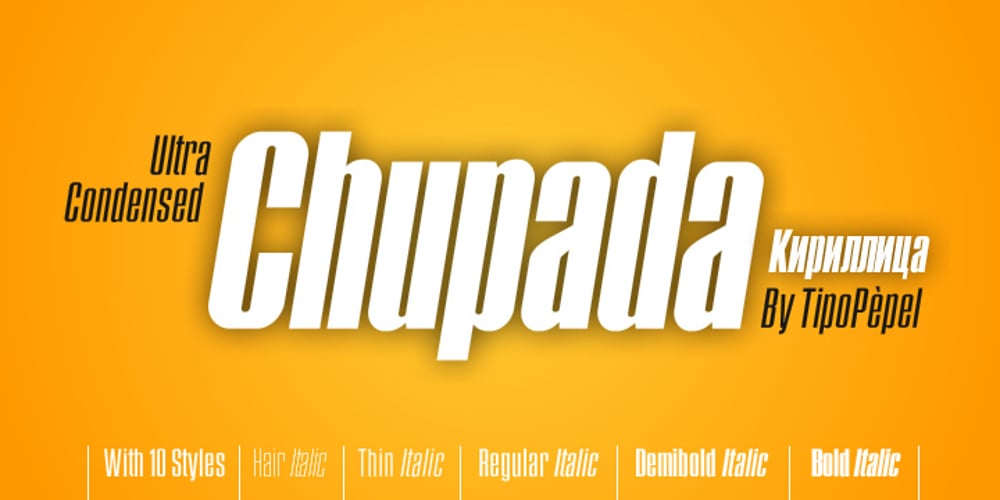
Chupada Font Family was designed by Josep Patau and published by Tipo Pèpel. Chupada contains 10 styles and family package options. Chupada is an ultra-condensed font family noted for their exaggerated x-height, which consists of five different weights, accompanied by their italic version. It contains all the central european characters and Cyrillic. Chupada with its bold semi-modular forms make it ideal for use in headlines, posters, titles and anywhere you need for create impact.